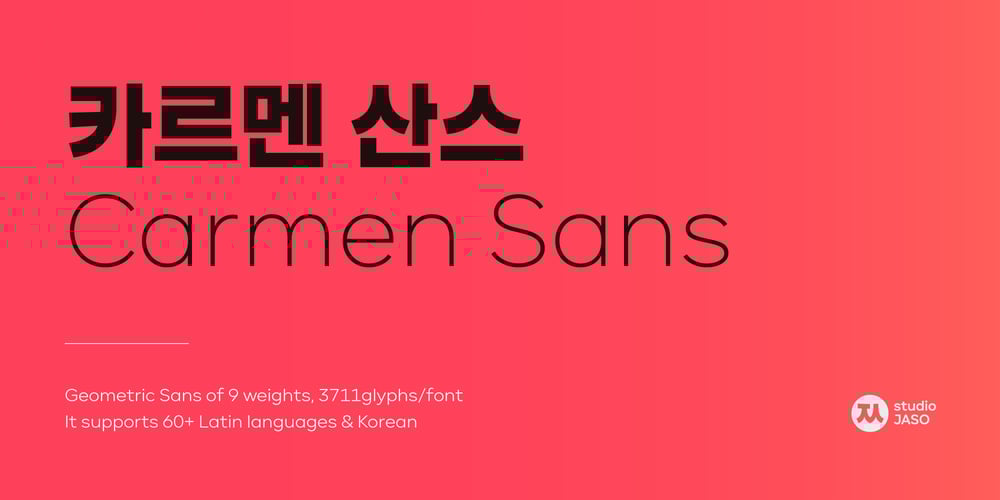
Carmen Sans Font Family was designed by StudioJASO and published by StudioJASO. Carmen Sans contains 9 styles and family package options. Carmen Sans is a Geometric Sans that expresses modern vigor based on simplicity and clarity. The Hangul font is designed to deliver the same tone as the Latin font with its light curvature and structure, and it is suitable for display purposes by arranging letter heights between the two character sets. With the total of 9 styles, Carmen Sans works seamlessly in a variety of media and omnidirectional graphic designs, from editing to integrated applications for your brand.